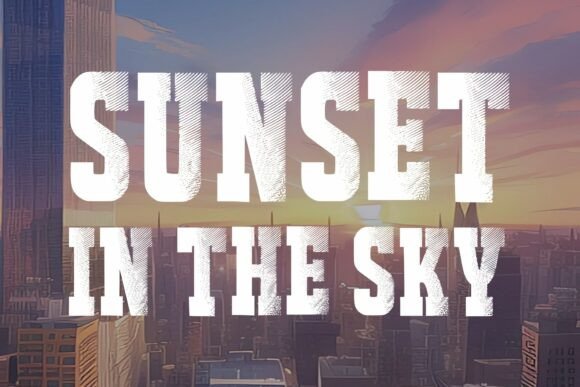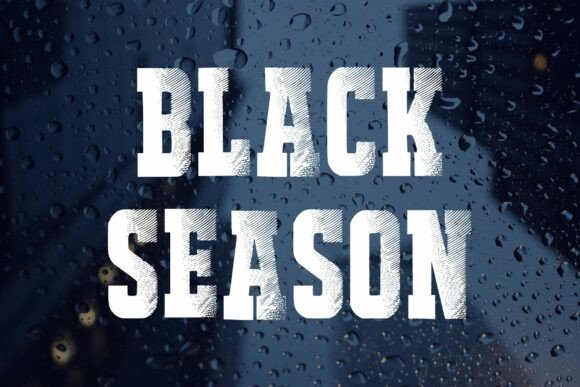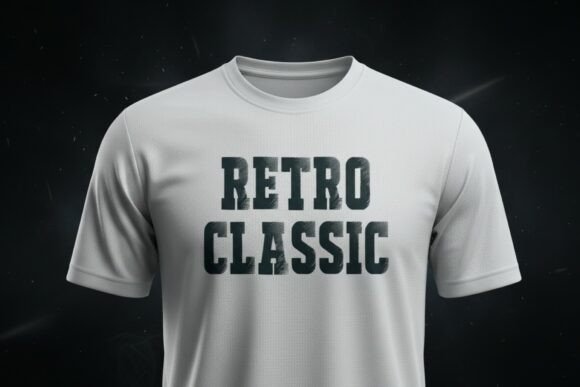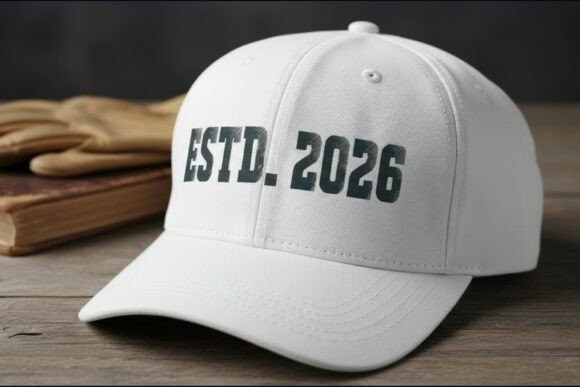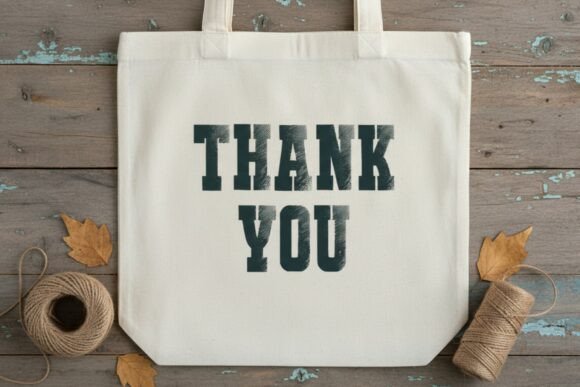
Introduction to Halftone Project Font
Halftone Project is a bold vintage display font featuring strong slab serif shapes combined with unique halftone texture details.
This font brings a classic retro-industrial feel with a modern twist, perfect for eye-catching headlines and impactful designs This Halftone Project typeface is designed for impact, featuring bold, blocky serifs that are filled with a gradient of dots to simulate vintage printing techniques.